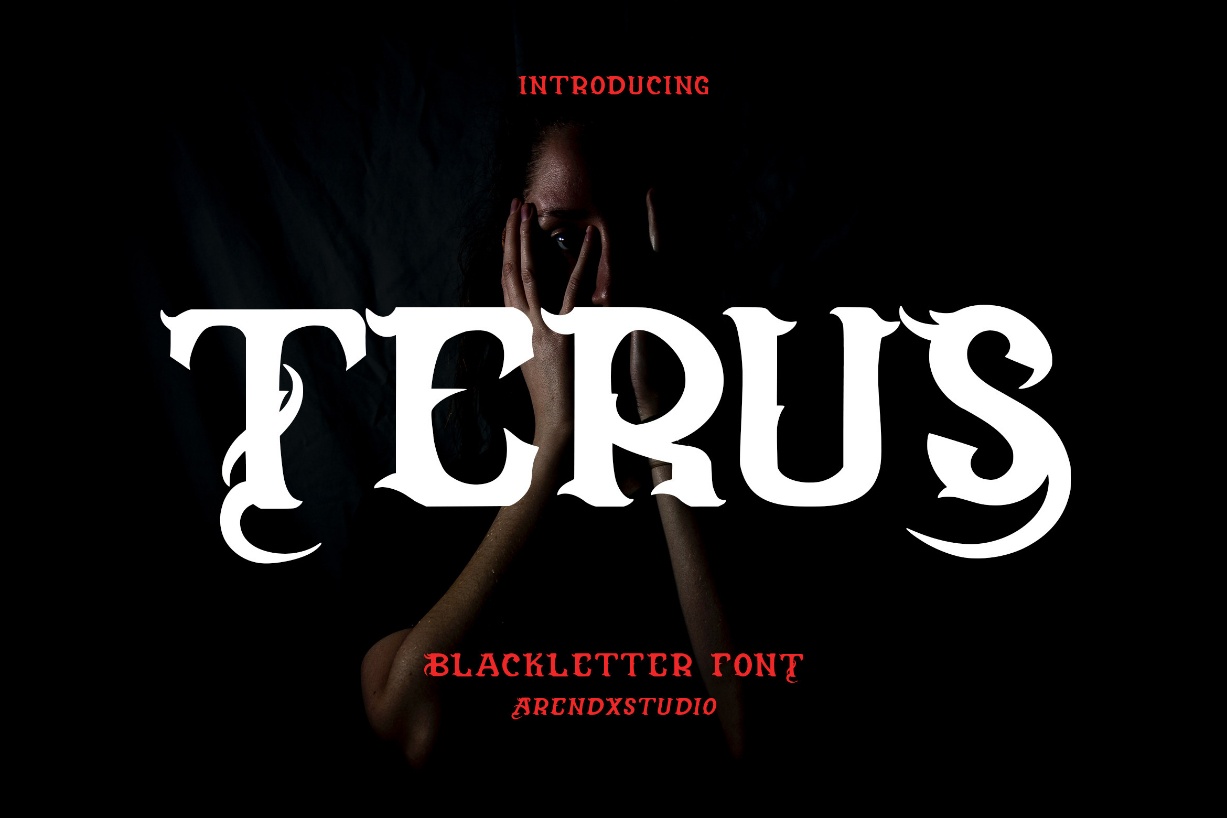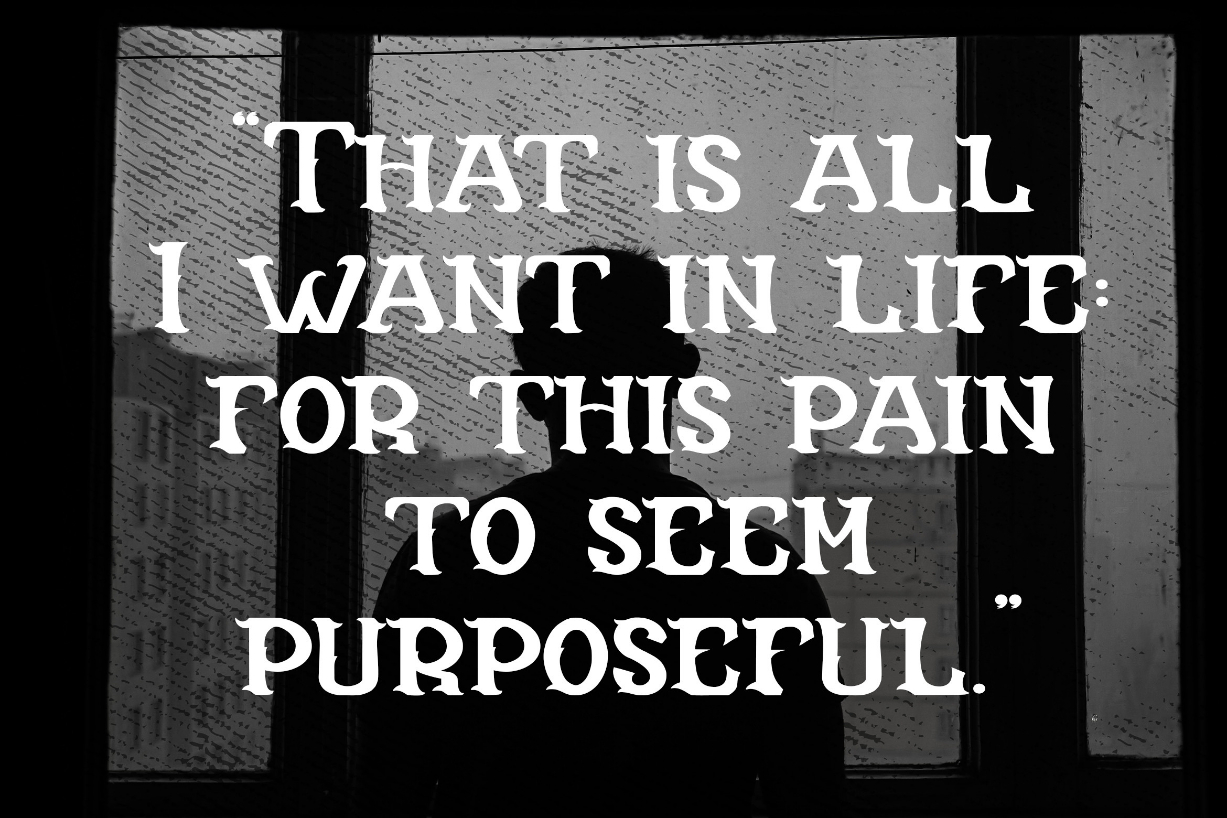
About Terus Font
Terus is a cool, bold and uniquely designed blackletter font. This font is PUA encoded which means you can access all of the glyphs and swashes with ease!